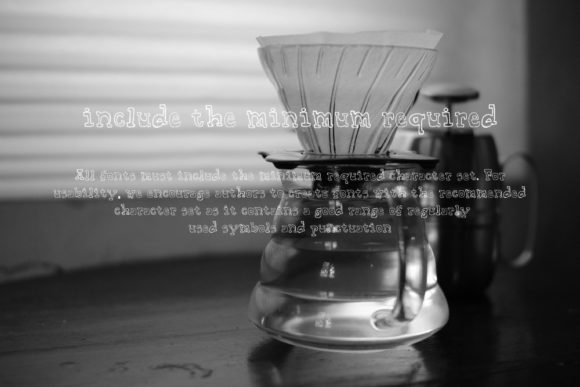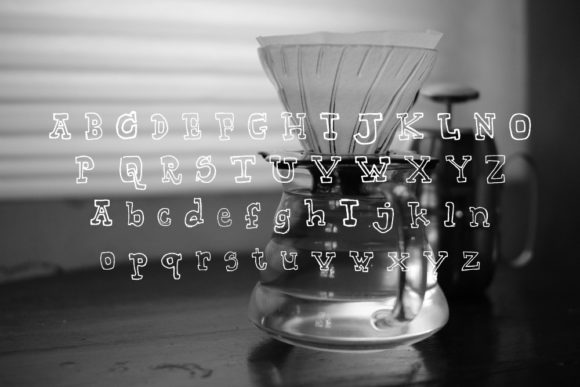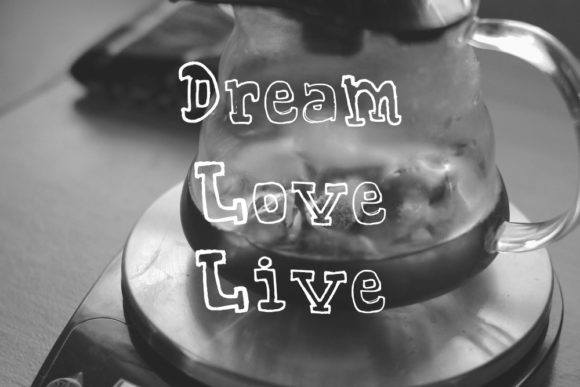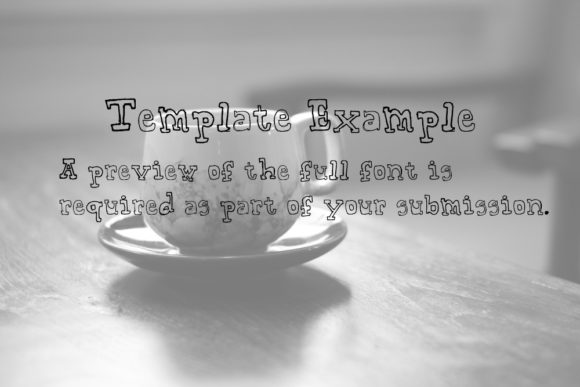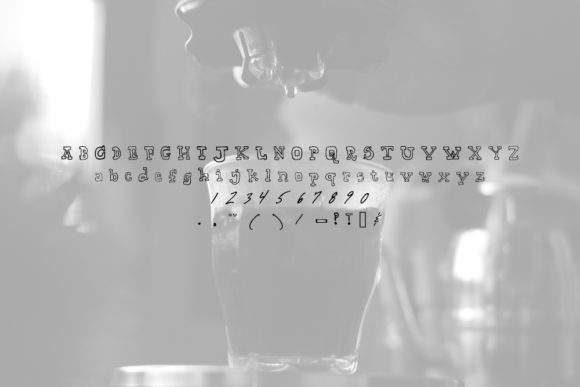
Unlock Your Creativity with the Whimsical Aprilindo Smockum Font
There’s something magical about stumbling upon a new font that sparks inspiration and sets your imagination racing. It’s that moment when the blank page or canvas transforms into a world of endless possibilities, and your creativity knows no bounds. You’re brainstorming ideas, sketching out designs, and envisioning the perfect project – and that’s exactly where the enchanting Aprilindo Smockum Font comes in.
Perfect for adding a touch of whimsy to your crafting projects, this quirky display font is sure to delight designers and crafty enthusiasts alike. With its unique look and feel, Aprilindo Smockum Font is the perfect tool to help you stand out and bring your ideas to life. Whether you’re creating invitations, posters, or digital graphics, this font is a valuable addition to any designer’s toolkit.
Aprilindo Smockum Font Features
- Font Family: Aprilindo Smockum Font is a unique, hand-drawn font family with a mix of elegant and modern elements.
- Resolution: Optimized for high-resolution displays, making it perfect for digital designs, such as logos, graphics, and UI elements.
- Language Support: Supports multiple languages, including Latin, Cyrillic, and Greek alphabets, making it a versatile font for global designs.
- Unique Characteristics: The font’s unique blend of traditional and modern elements, along with its intricate details and subtle flourishes, make it an ideal choice for designs that require a touch of elegance and sophistication.
Designer Review: Aprilindo Smockum Font
Overall, I’m impressed with the Aprilindo Smockum Font’s unique blend of traditional and modern elements. Here are some aspects that really shine:
- ✨ Unique aesthetic: The font’s blend of traditional and modern elements creates a visually interesting look that can add character to various designs.
- ✨ High legibility: The font’s design ensures that text remains easily readable even at smaller sizes, making it suitable for body text and titles alike.
- ✨ Versatility: Aprilindo Smockum Font comes in multiple weights, making it easy to use across various design projects and applications.
- ⚠️ Limited language support: Aprilindo Smockum Font seems to be optimized for Latin-based languages, which may limit its use for designs that require support for other languages.
- ⚠️ Limited character set: The font’s character set appears to be relatively small, which may cause issues if you need to use special characters or symbols.
Overall, I think Aprilindo Smockum Font is a great choice for designers looking to add a unique touch to their projects. While it may have some limitations, its unique aesthetic and high legibility make it a solid option for various design applications.
Aprilindo Smockum Font is ideal for:
- Creating unique and eye-catching headings.
- Designing custom logos and typography-based artwork.
- Adding a touch of elegance to presentations and documents.